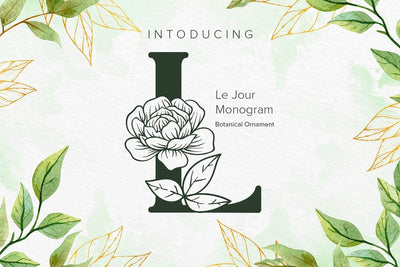
Le Jour Monogram Font
Le Jour Monogram is a beautiful monogram font. Fall in love with its authentic feel and use it to create gorgeous wedding invitations, beautiful stationary art, eye-catching social media posts, and cute greeting cards.